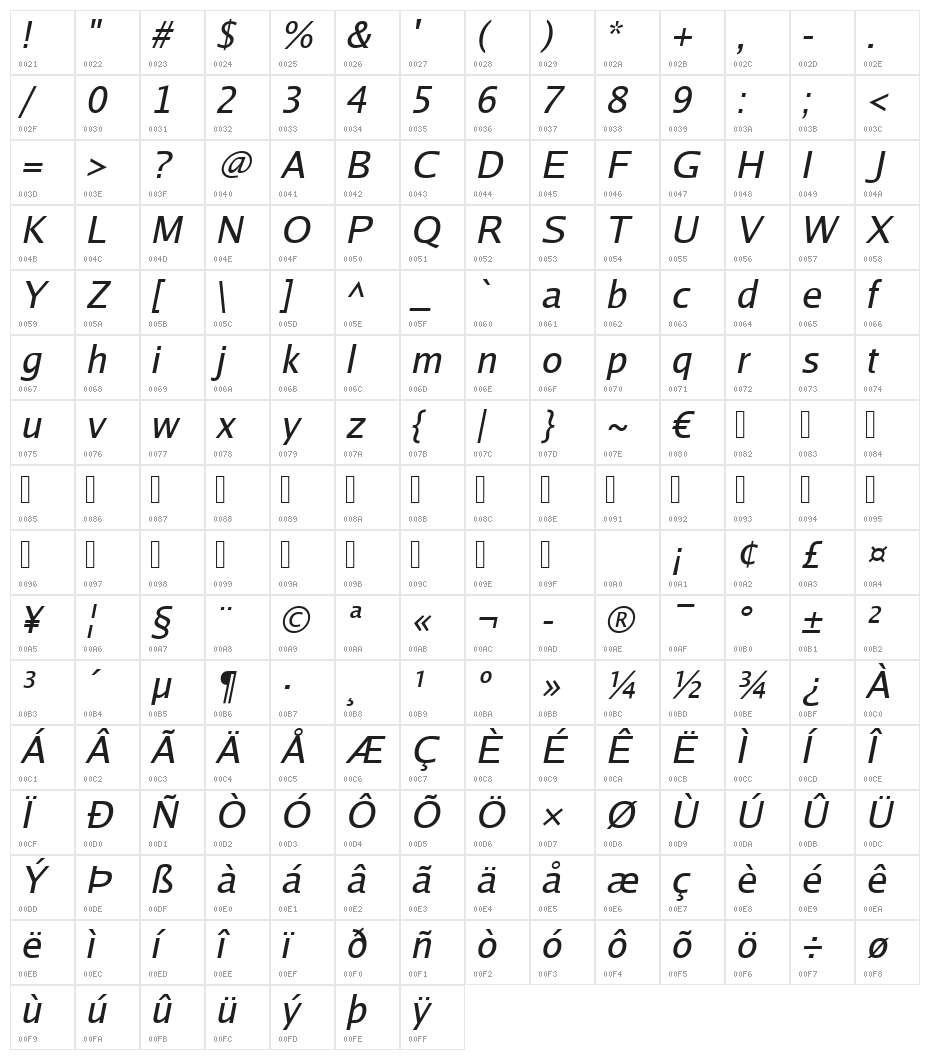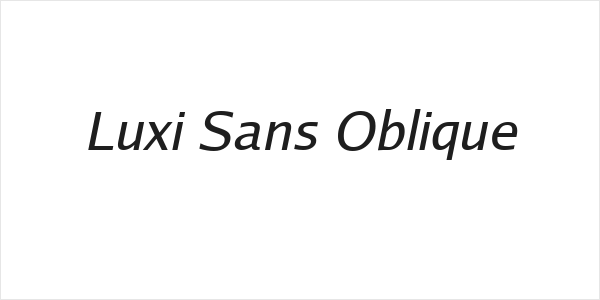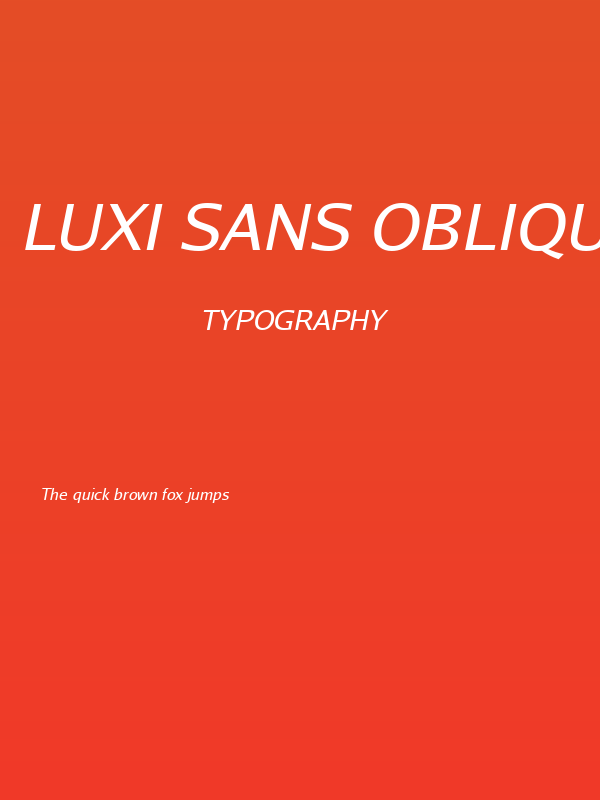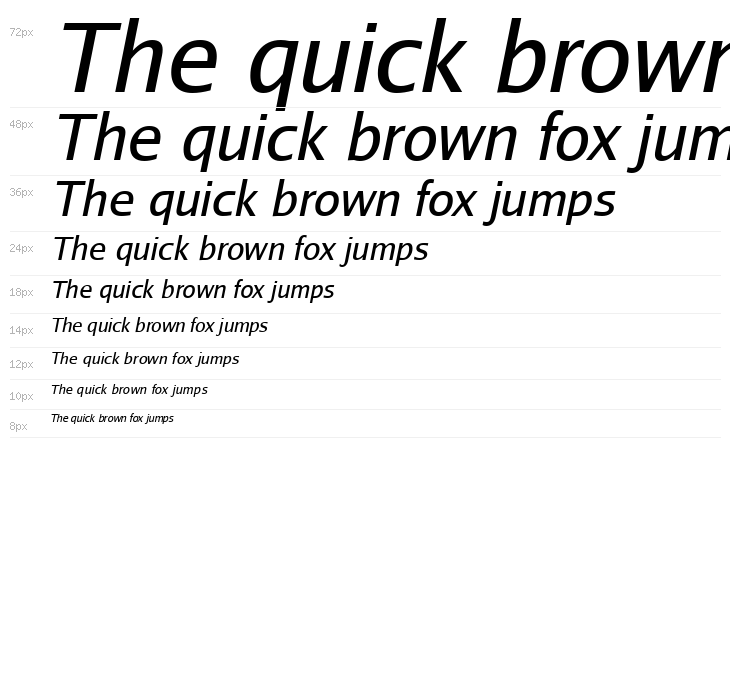
Luxi Sans Oblique Font
Luxi Sans Oblique Description
This font features a sleek, modern sans-serif design with an oblique style, giving it a dynamic and forward-leaning appearance. The characters are clean and well-defined, with a consistent stroke width that provides a uniform look across all letters and numbers. The uppercase and lowercase letters are well-proportioned, and the numerals are clear and easy to read. The special characters are distinct and maintain the overall aesthetic of the font. Its oblique nature adds a sense of motion and energy, making it suitable for contemporary design projects.